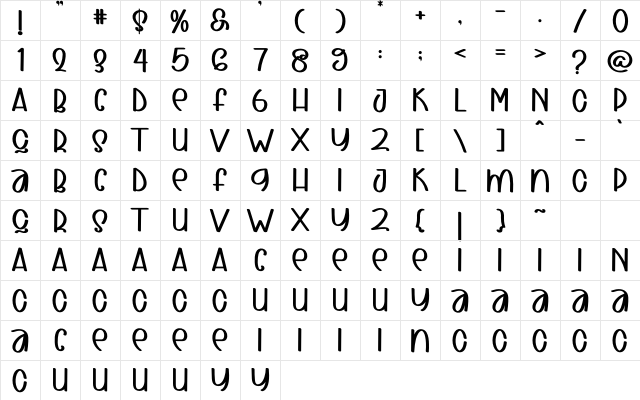
BABY QUEEN Regular
Complete BABY QUEEN Regular glyph index. Displaying only characters natively supported by BABY QUEEN Regular font.
Design Context for BABY QUEEN
BABY QUEEN is a composed and adaptable typeface that performs quietly and consistently across a wide range of design contexts.